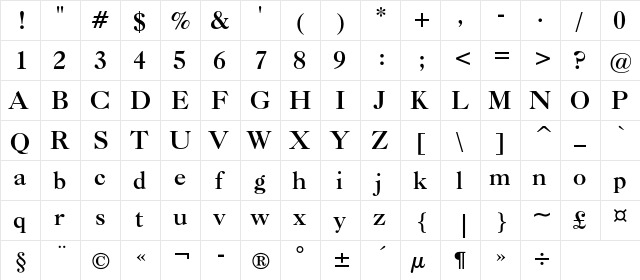
CaslonC 540 BT Bold Font Preview
CaslonC 540 BT Bold
CaslonC 540 BT Bold Font Details
Design Context for CaslonC 540 BT Typeface
CaslonC 540 BT is a composed and adaptable typeface that performs quietly and consistently across a wide range of design contexts. The heavy weight commands attention and anchors typographic hierarchies.
Pro Tip: Pair CaslonC 540 BT with a font of contrasting weight or personality to build a more expressive typographic hierarchy.